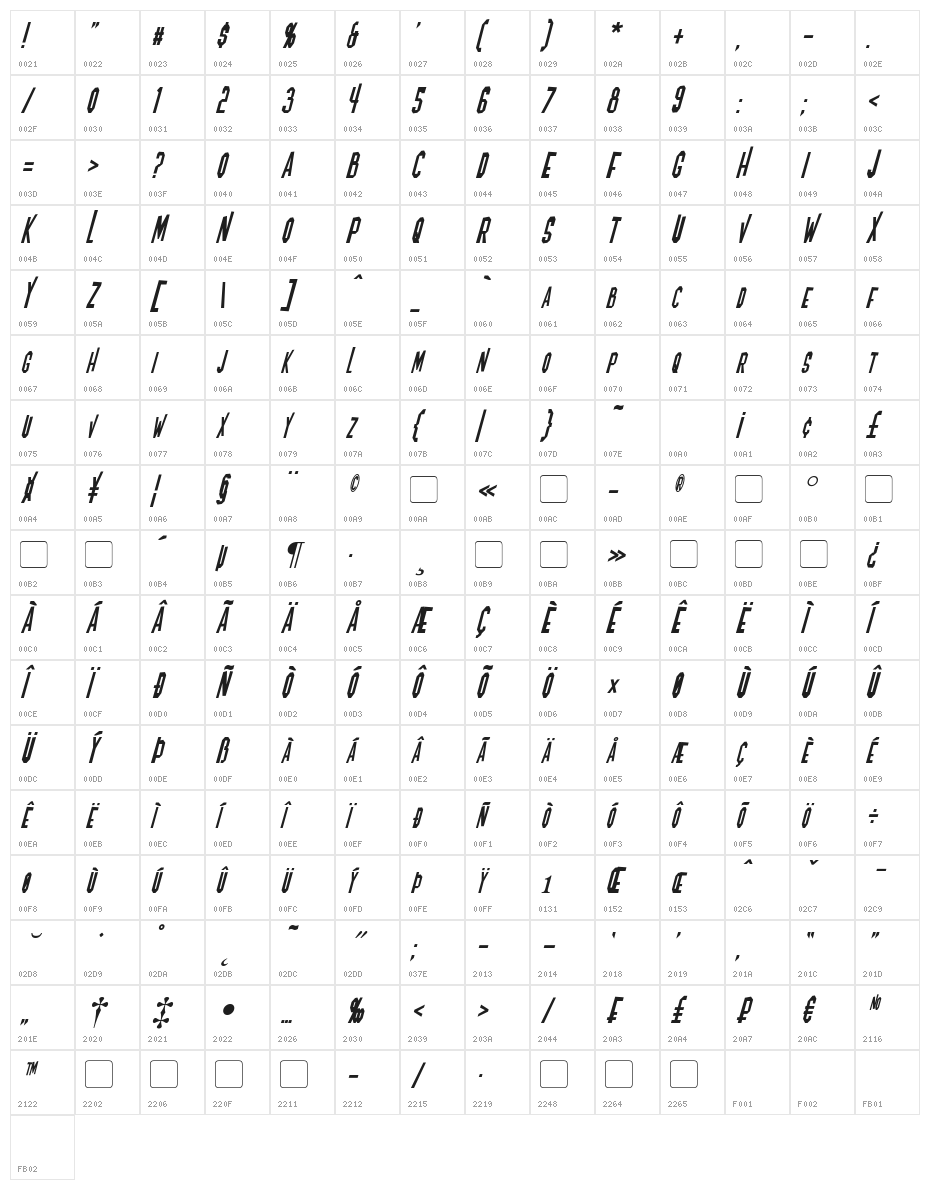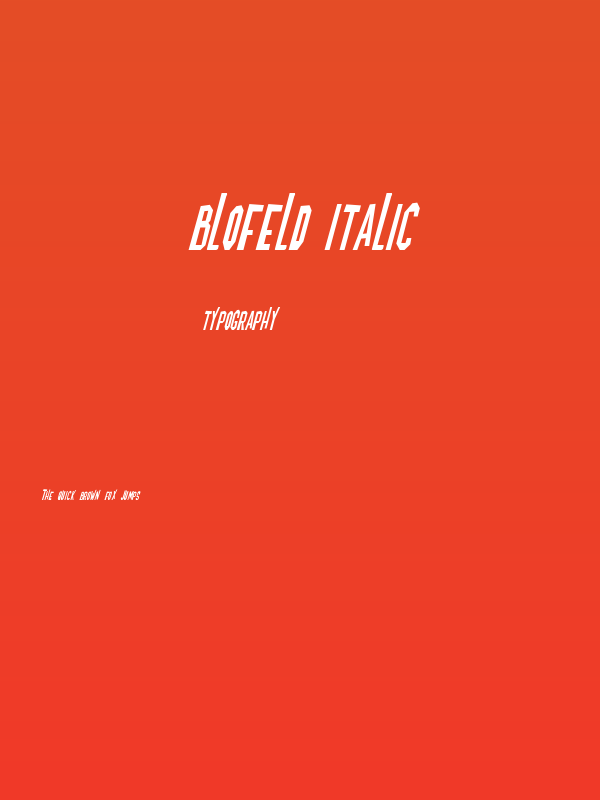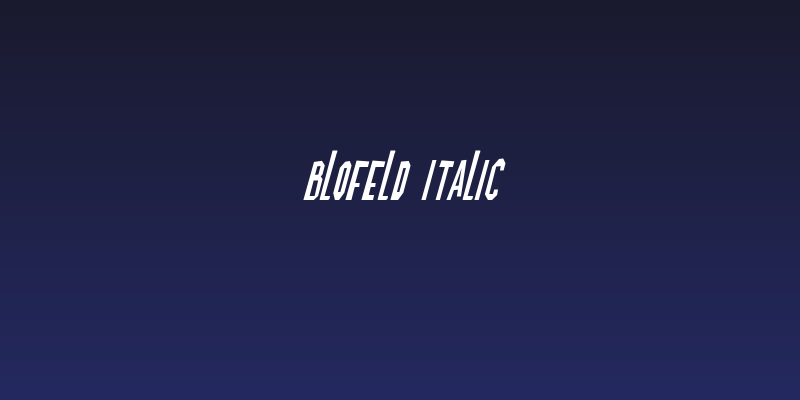
Blofeld Italic Font
Blofeld Italic Description
This font features a bold, italicized style with a strong, angular design. The characters are sharply defined with a distinct slant, giving it a dynamic and energetic appearance. The uppercase and lowercase letters maintain a consistent style, with the uppercase being more pronounced. Numbers and special characters follow the same angular and bold aesthetic, ensuring uniformity across all glyphs. The font's aggressive slant and thick strokes make it stand out, ideal for impactful designs. Its geometric shapes and sharp edges contribute to a modern and edgy look, suitable for projects that require a bold statement.
| Proposed Projects | Ideal for sports branding, action movie posters, dynamic logos, and edgy graphic designs. |